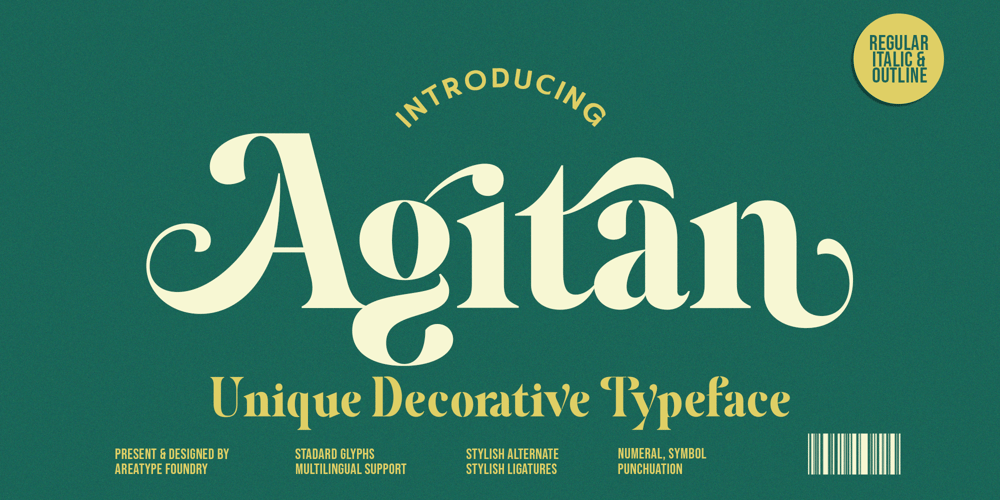
Agitan Display
Agitan Display font
Agitan Display Font Family was designed by Ambia and published by Areatype. Agitan Display contains 3 styles and family package options. Agitan Display is a serif display font that has a unique, feminine and elegant style.Files included: Agitan Display Regular Agitan Display Italic Agitan Display Outline Numerals & Punctuation Stylistic Alternates & Ligatures PUA Encoded Characters Good choice for branding, magazines, posters, advertising, print, packaging, headlines, web design etc.